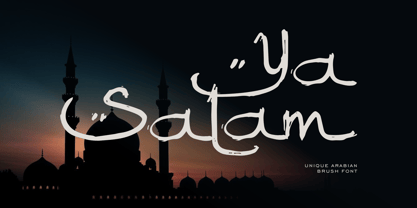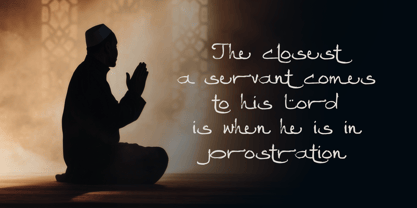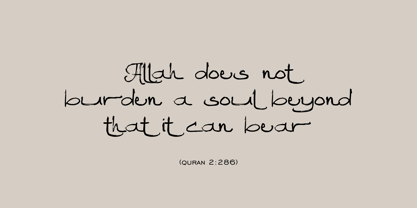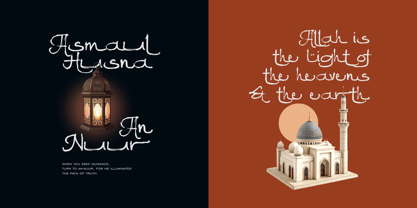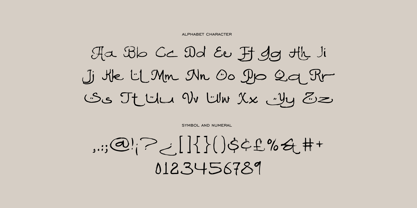
Ya Salam
by Runsell Type
The Ya Salam Font Family was designed by Satia Hayu Prabowo and published by Runsell Type. Ya Salam contains 1 styles.
Introducing Ya Salam, a stunning blend of traditional Arabic calligraphy and modern brush strokes. This font captures the fluidity and elegance of Arabic script, while infusing it with a bold, expressive energy typical of brush lettering. Perfect for projects that require a cultural touch with a contemporary twist, this font features dynamic, flowing characters that evoke the artistry of hand-painted designs. Whether you're creating designs for invitations, logos, or artwork, the Ya Salam brings an authentic yet fresh appeal to your typography. Its brush-like strokes provide an organic feel, while the distinct Arabic influences make it ideal for Middle Eastern-themed projects, festive greetings, or any design that seeks to honor rich cultural heritage.
Designers: Satia Hayu Prabowo
Publisher: Runsell Type
Foundry: Runsell Type
Design Owner: Runsell Type